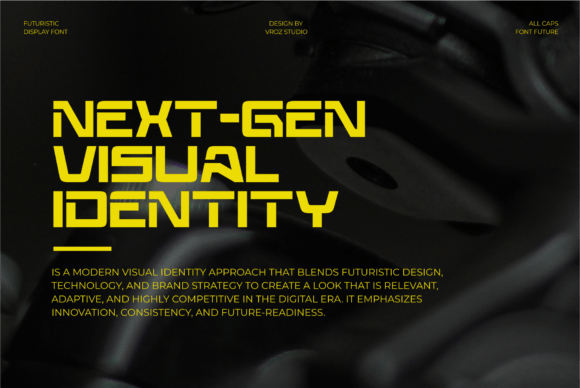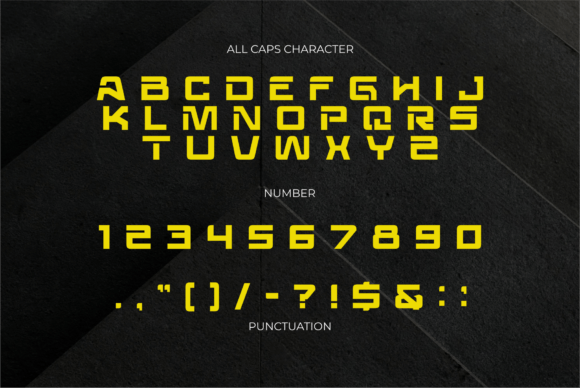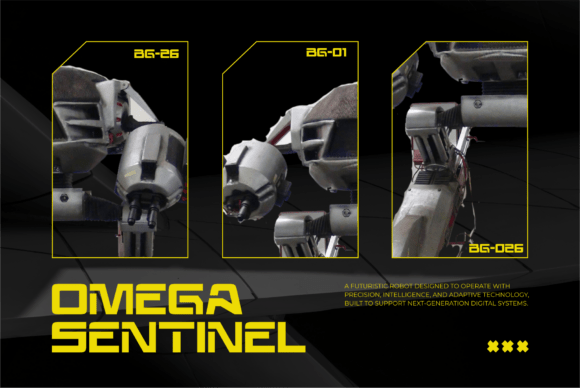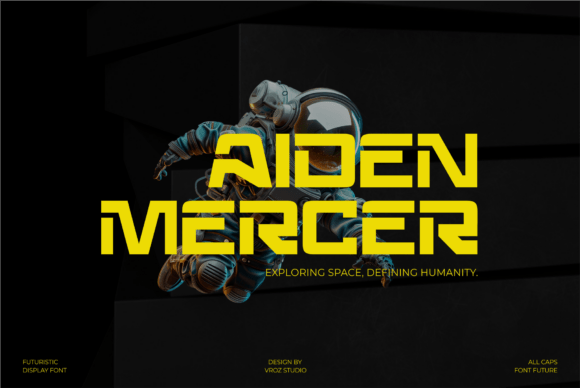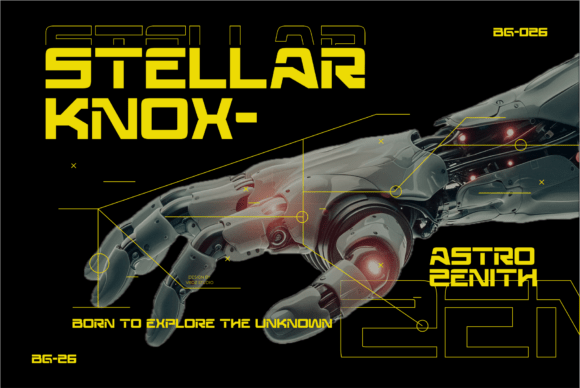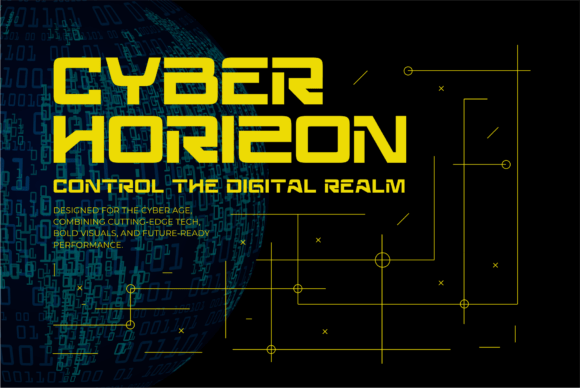
Unlocking the Future of Design with Briganix Font
Have you ever been stuck on a design project, unable to find the perfect font to bring your vision to life? You know, that moment when everything else falls into place, but the font just doesn’t seem to fit? That’s where Briganix Font comes in – a futuristic modern sans-serif font designed to deliver clarity, precision, and a contemporary design aesthetic.
Briganix Font is more than just a typeface – it’s a powerful tool for designers looking to create confident and forward-looking visual styles. With its geometric structure, clean cuts, and smooth transitions, Briganix Font is the perfect choice for modern digital environments, from branding and technology-related designs to gaming visuals and web interfaces.
Briganix Font Key Features
- Font Family: Briganix Font is a unique sans-serif font family, designed for modern and minimalist designs.
- Character Set: The Briganix Font family includes a comprehensive character set, covering Latin, Cyrillic, and Greek alphabets, as well as a range of punctuation and symbol characters.
- Unique Characteristics: Briganix Font features a distinctive geometric shape, clean lines, and a modern aesthetic, making it ideal for digital and print projects requiring a sleek and contemporary look.
Briganix Font Review
I recently had the chance to work with the Briganix font, and I must say it’s a mixed bag. ✨ There are some things that work well, but there are also some limitations that might make you think twice.
- Unique style: Briganix has a distinct, futuristic feel that can really add some flair to your designs.
- High-quality rendering: The font looks great on screen and in print, with crisp lines and clear typography.
- Good for futuristic themes: If you’re working on a project that involves sci-fi, technology, or futurism, Briganix is a great choice.
- Not versatile: Briganix is a bit of a niche font, and it might not be the best choice for every project.
- Limited font sizes: At smaller font sizes, Briganix can start to look a bit pixelated and blurry.
- Not suitable for body text: Due to its futuristic style, Briganix is better suited for headings and titles rather than body text.
- ⚠️ Requires careful kerning: The font’s unique style can make it tricky to get the kerning just right, so be sure to pay attention to this.
Overall, I’d say Briganix is a solid choice if you’re looking for a font with a unique style and high-quality rendering. Just be aware of its limitations and use it judiciously.
Tips for Getting the Most Out of Briganix Font
1. Use Briganix font for headings and titles to create a bold and modern look.
2. Pair Briganix font with a clean and simple sans-serif font for body text.
3. Experiment with different font sizes and styles to create visual interest.
1. Branding and logo design.
2. Brochures and flyers.
3. Digital marketing materials, such as social media graphics and email templates.
Alternatives to Briganix Font for Designers
The Briganix Font is a sans-serif font known for its clean and modern aesthetic. However, there are several alternatives that can be used depending on the specific design requirements.
Montserrat is a sans-serif font designed by Julieta Ulanovsky. It is inspired by the urban environment of Buenos Aires and features a geometric and modern aesthetic. Montserrat is ideal for use in digital design, signage, and editorial content where a clean and modern look is required.
Montserrat compares to Briganix Font in its clean and modern aesthetic, but it has a slightly more geometric and industrial feel. Montserrat is a great alternative for designers who want a font that is both stylish and easy to read.
Open Sans is a modern sans-serif font designed by Steve Matteson. It is highly legible and features a clean and neutral aesthetic. Open Sans is ideal for use in digital design, web applications, and mobile apps where a clean and easy-to-read font is required.
Is the Briganix Font available in bold and italic styles?
Yes, the Briganix Font is available in bold and italic styles, as well as regular. The bold style is ideal for headings and titles, while the italic style is suitable for emphasis and quotes. The regular style is suitable for body text and general use.